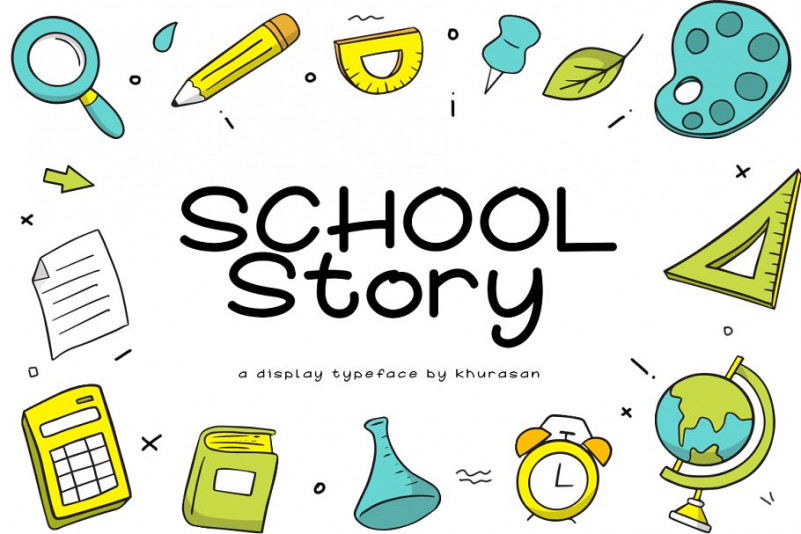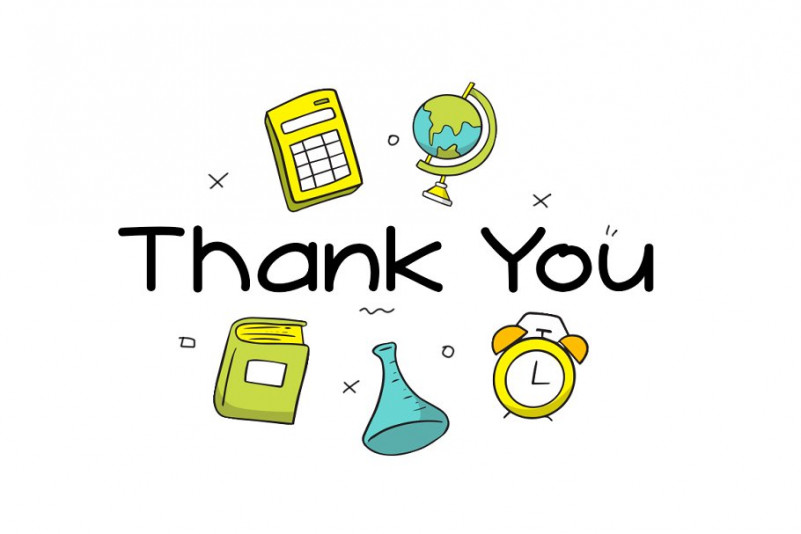
School Story Font
Introducing, School Story font a fun display typeface with cheerful theme for your fun project. School Story font suitable for logo, branding, greeting card, poster and any design that you create.